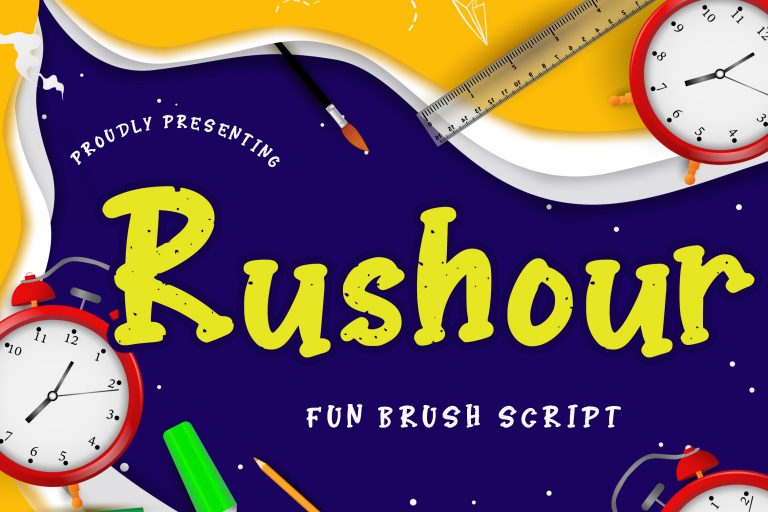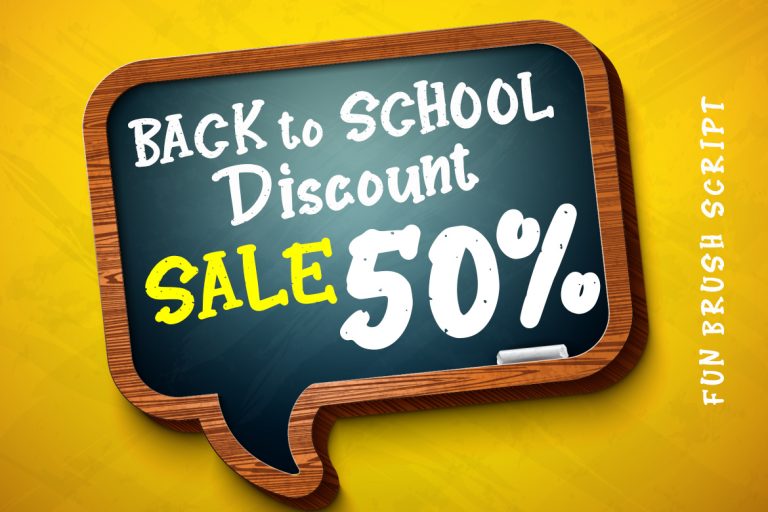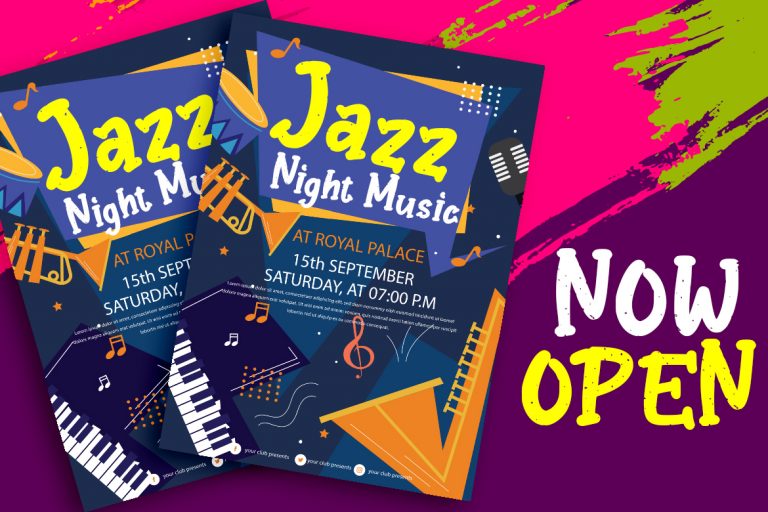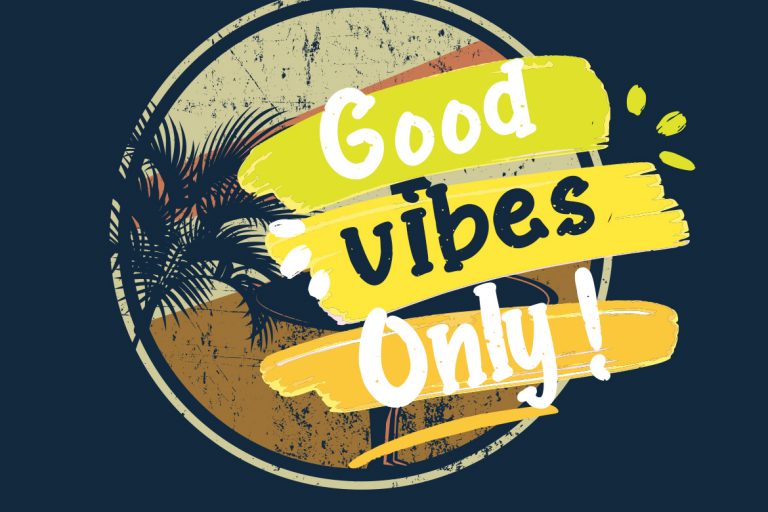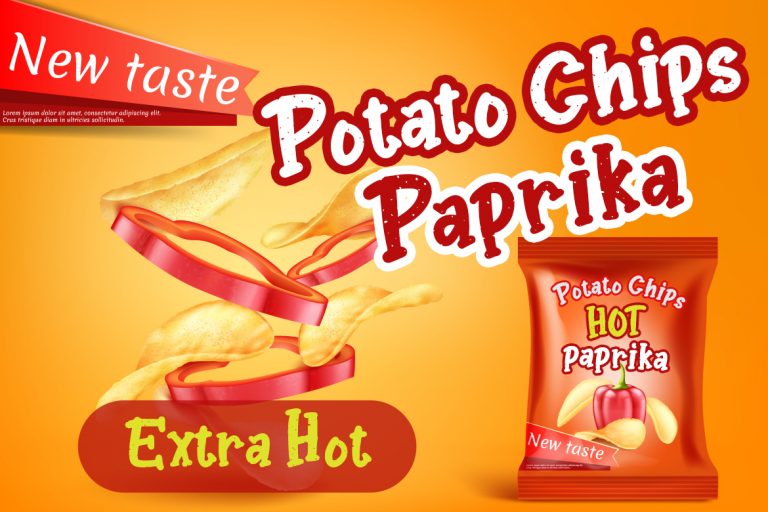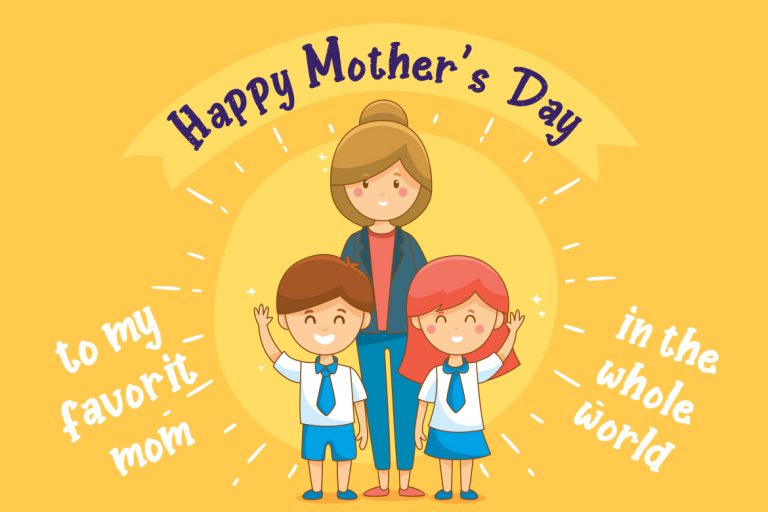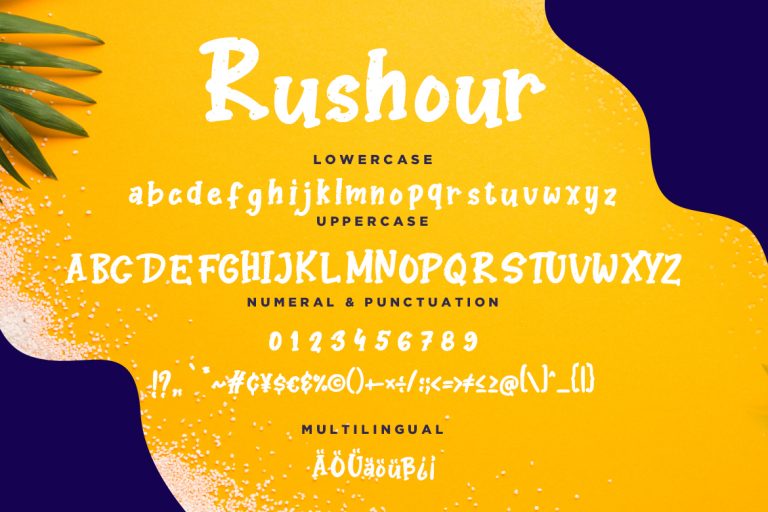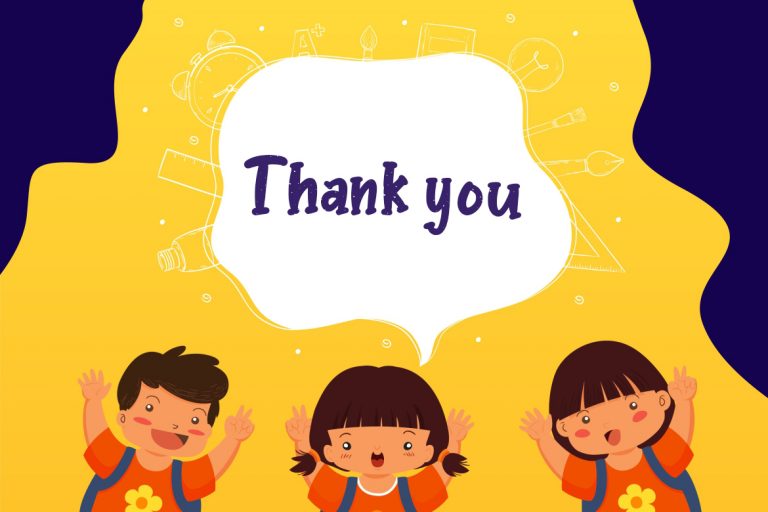
Rushour is fun brush script font, it’s suit for children and kindergarten occasions.
Rushour is perfect for branding projects, logo, wedding designs, social media posts, advertisements, product packaging, product designs, label, photography, watermark, invitation, stationery and any projects that need handwriting taste.
- Standard glyphs
- Ligature
- Fonts include multilingual support for; ä ö ü Ä Ö Ü ß ¿ ¡
Rushour Fun Brush Script